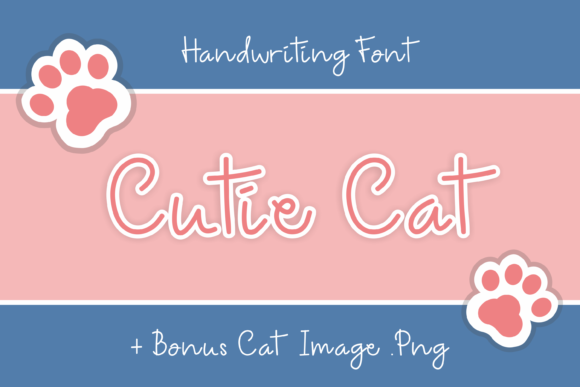
Cutie Cat Font
About Cutie Cat Font
Cutie Cat is a cute and casual handwritten font with an incredibly friendly feel. Whether you’re looking for fonts for Instagram or calligraphy scripts for DIY projects, this font will turn any creative idea into a true piece of art!